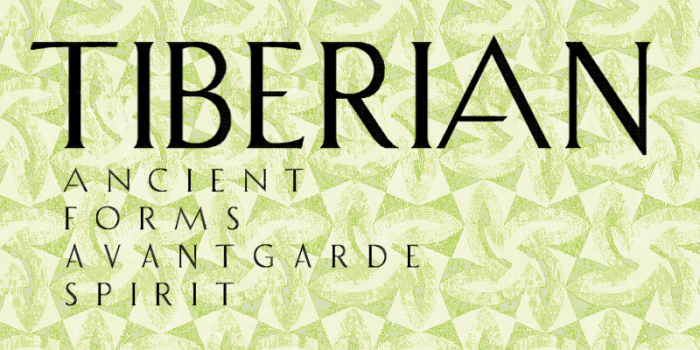
Looks pretty good, a great alternative to Trajan for sure.
Thanks winty. ¿Any Idea for V? is too wide, but it seems impossible to make an appropiate angle with 2x2 filters.
No idea, angles and composites are really not my area of expertise. Try All Composites saved in MY BRICKS.
I like it, very nice.
You guys are all outdoing yourselves.  Love it.